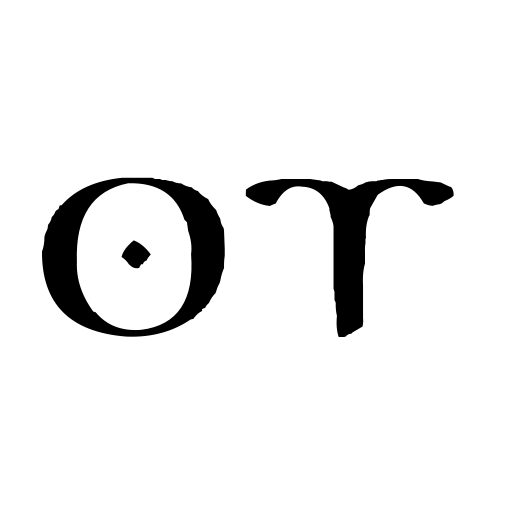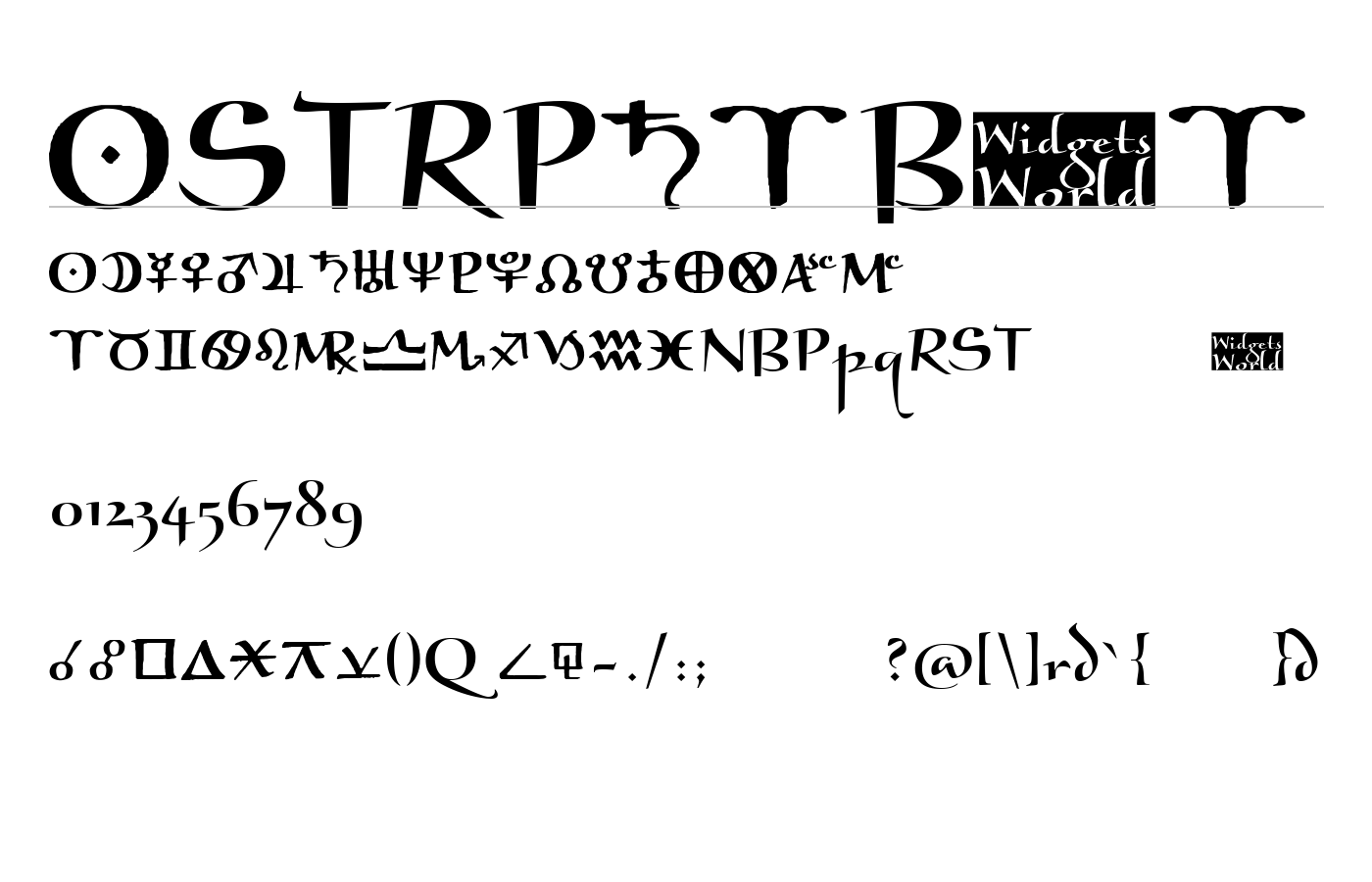
AstroGanza is an intriguing serif font with a distinctive, almost mystical flair, featuring irregular stroke shapes and pronounced contrasts that give it a hand-crafted, calligraphic feel. Its unusual letterforms and fine details make it perfect for fantasy-themed projects, logos, or creative editorial designs where a unique and artistic impression is desired. This font works best when used in headlines or decorative text to add personality and a sense of wonder.
AstroGanza Font
About AstroGanza Font
| Font family | AstroGanza Font |
| Designer | Jason Davies |